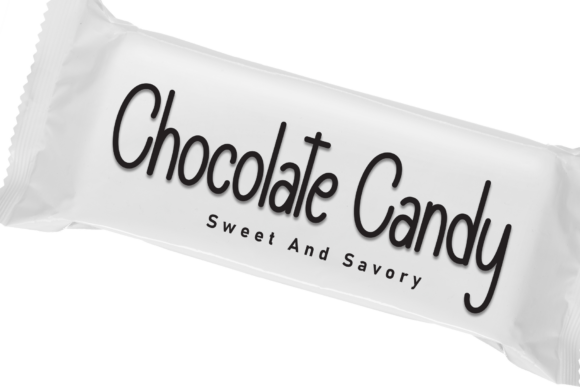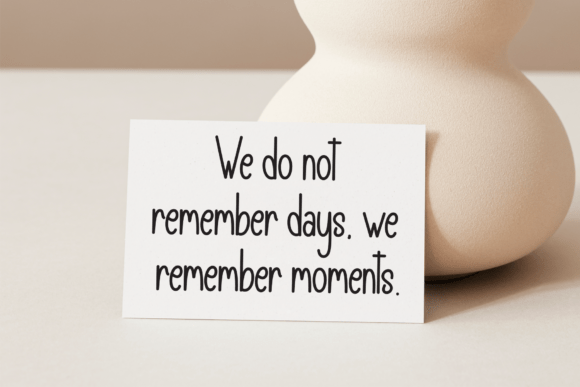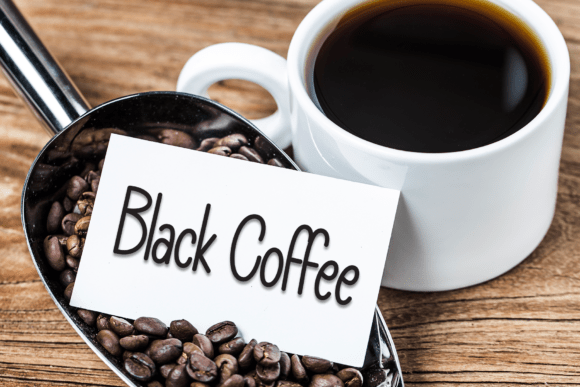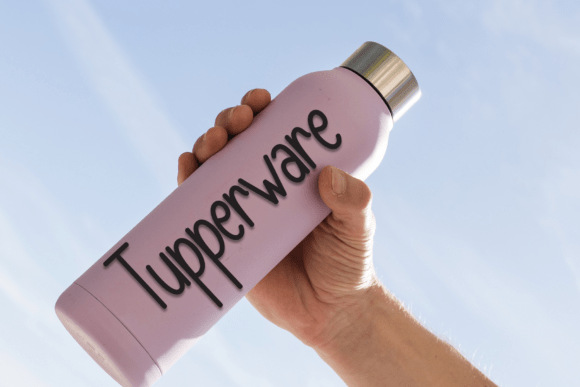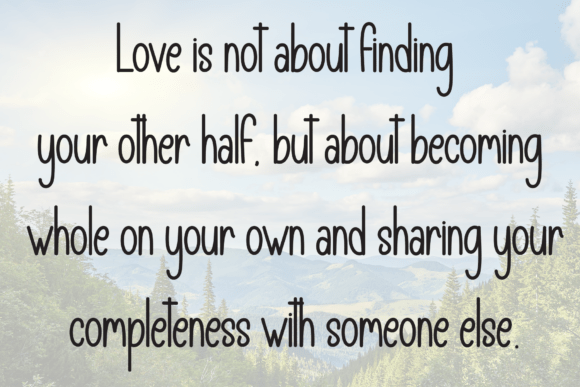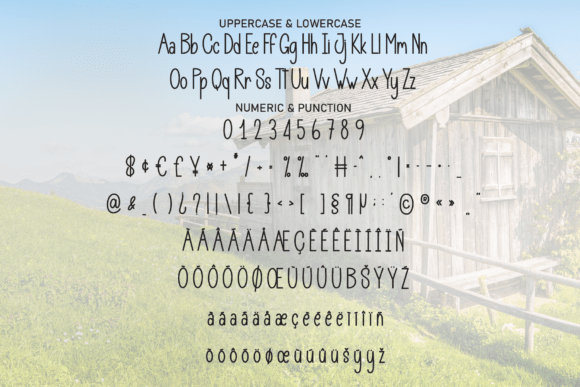
Introducing Farmhouse Font: A Charmingly Delightful Handwritten Display Font
Are you looking for a font that can add a touch of warmth and friendliness to your designs? Look no further than Farmhouse Font, a charmingly delightful handwritten display font that exudes a sweet friendliness like no other. With its witty and playful vibe, this font is perfect for wedding invitations, greeting cards, or any design that seeks an element of joy.
Farmhouse Font is beautifully crafted and thoughtfully designed to carry the magic of festivity and warmth. Its unique and elegant style makes it perfect for designers and crafters who want to give their creations an engaging, heartfelt touch. Whether you’re designing a wedding invitation, a greeting card, or a social media post, this font is sure to make your design stand out.
- Handwritten Display Font: Farmhouse Font is a handwritten display font that is designed to add a personal touch to your designs.
- Witty and Playful: This font has a witty and playful vibe that makes it perfect for designs that require a touch of humor and whimsy.
- Sweet Friendliness: Farmhouse Font exudes a sweet friendliness that makes it perfect for designs that require a warm and inviting tone.
- Perfect for Wedding Invitations and Greeting Cards: This font is perfect for wedding invitations, greeting cards, or any design that seeks an element of joy.
- Pair it with Other Fonts: Farmhouse Font pairs well with other fonts, such as serif and sans-serif fonts. Experiment with different font combinations to find the perfect look for your design.
- Use it for Headings and Titles: Farmhouse Font is perfect for headings and titles. Use it to add a touch of whimsy and personality to your design.
- Add it to Your Social Media Posts: Use Farmhouse Font to add a touch of personality to your social media posts. It’s perfect for creating engaging and eye-catching graphics.
Benefits of Using Farmhouse Font
There are many benefits to using Farmhouse Font in your designs. Here are a few:
- Unique and Eye-Catching: Farmhouse Font is a unique and eye-catching font that will make your designs stand out.
- Easy to Read: This font is easy to read, making it perfect for designs that require a lot of text.
- Versatile: Farmhouse Font is a versatile font that can be used in a variety of designs, from wedding invitations to social media posts.
In conclusion, Farmhouse Font is a charmingly delightful handwritten display font that exudes a sweet friendliness like no other. With its witty and playful vibe, this font is perfect for wedding invitations, greeting cards, or any design that seeks an element of joy. Its unique and elegant style makes it perfect for designers and crafters who want to give their creations an engaging, heartfelt touch. So why wait? Download Farmhouse Font today and start creating beautiful designs that will leave a lasting impression.